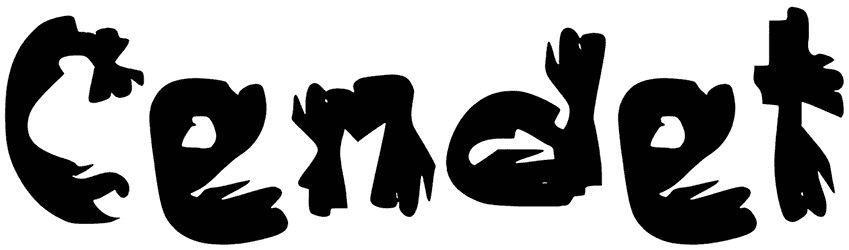
c Cendet Font
c Cendet is a new generation of brush fonts that leave different unnatural effects on each letter. This fancy font has irregular edges that can look good in horror projects and will have a special place in fantasy projects.
So if you are looking for a distorted font that does not take much time to design posters, logos, and typography and brings you an inherent beauty, try c Cendet.